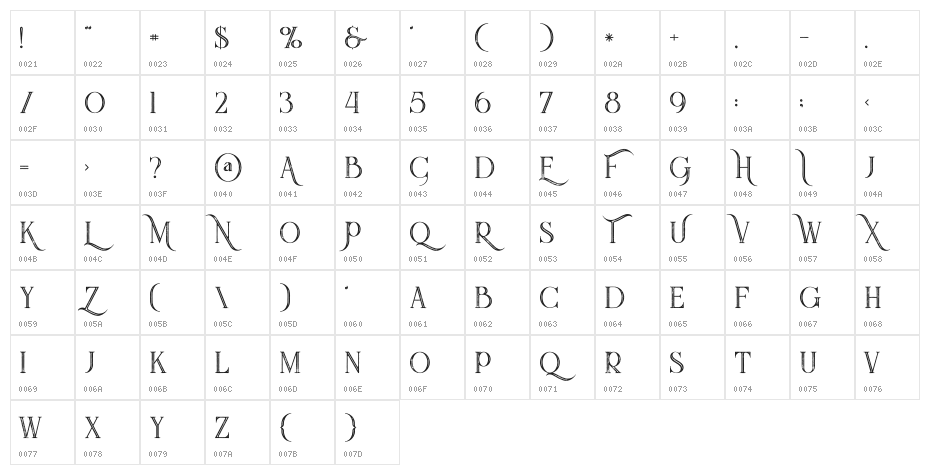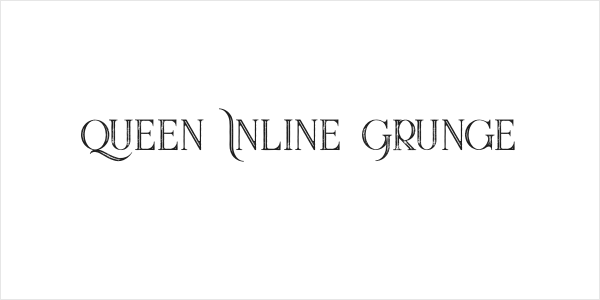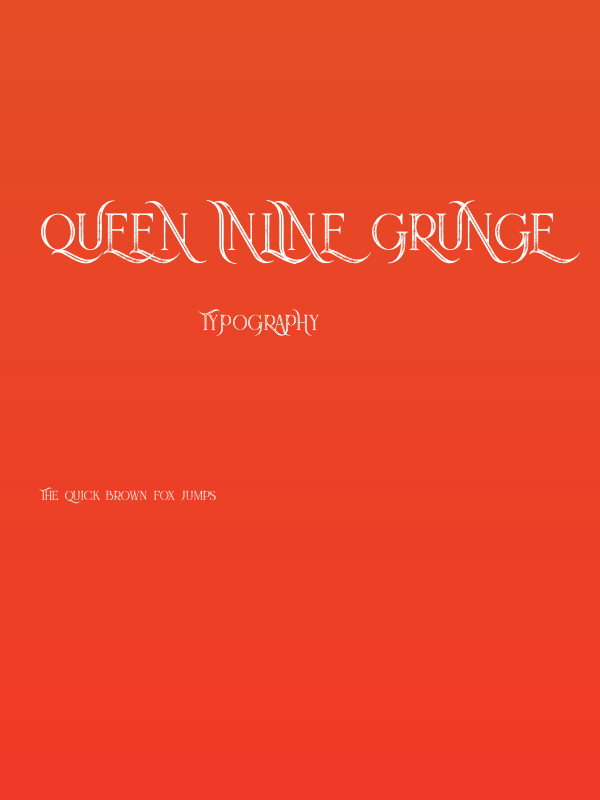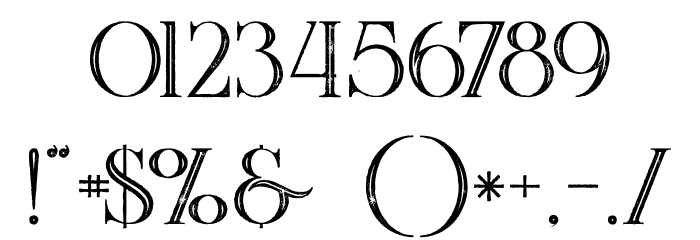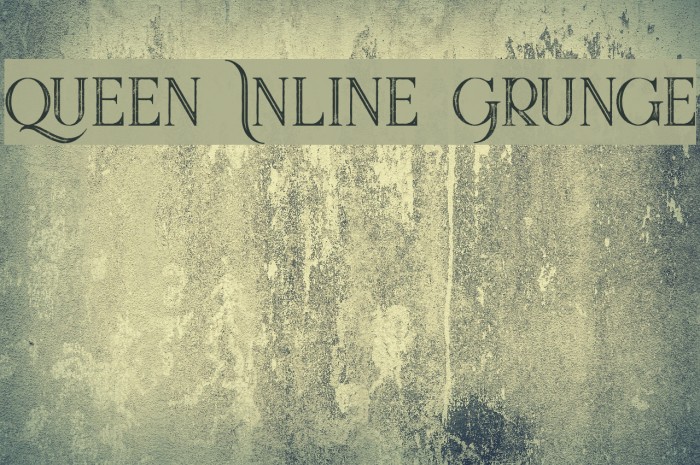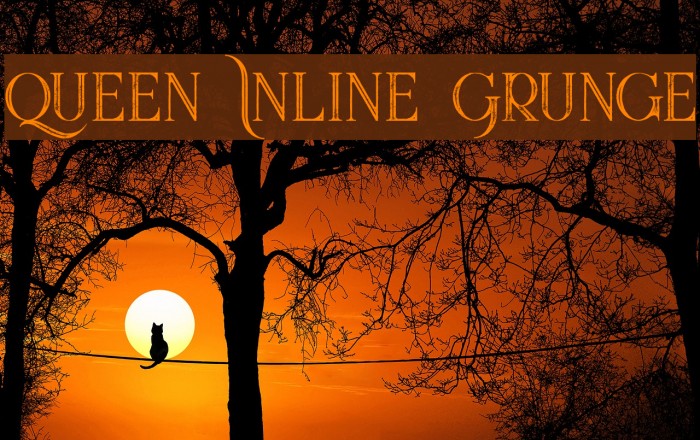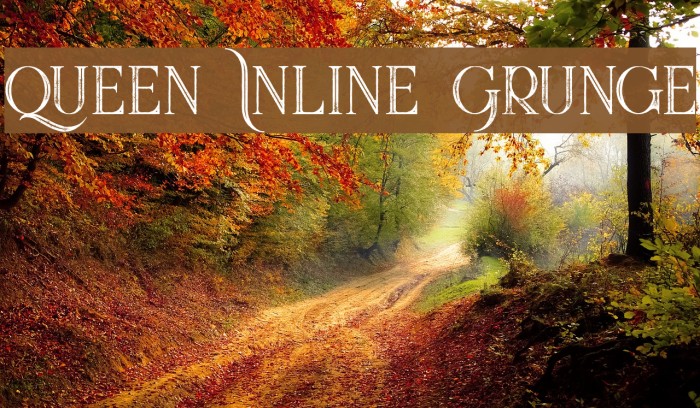
Queen Inline Grunge Font
Queen Inline Grunge Description
This font features a distinctive grunge style with an inline design that adds a unique flair to each character. The uppercase letters are adorned with elegant swashes, giving them a regal and artistic appearance. The lowercase letters maintain a consistent style, complementing the uppercase with their own subtle embellishments. Numbers are clear and legible, while special characters carry the same artistic touch, making them stand out. The overall texture of the font is rough and textured, adding to its grunge aesthetic, which is perfect for designs that require a bold and unconventional look.
| Proposed Projects | Ideal for album covers, posters, branding projects, and any design that requires a bold, artistic touch. |